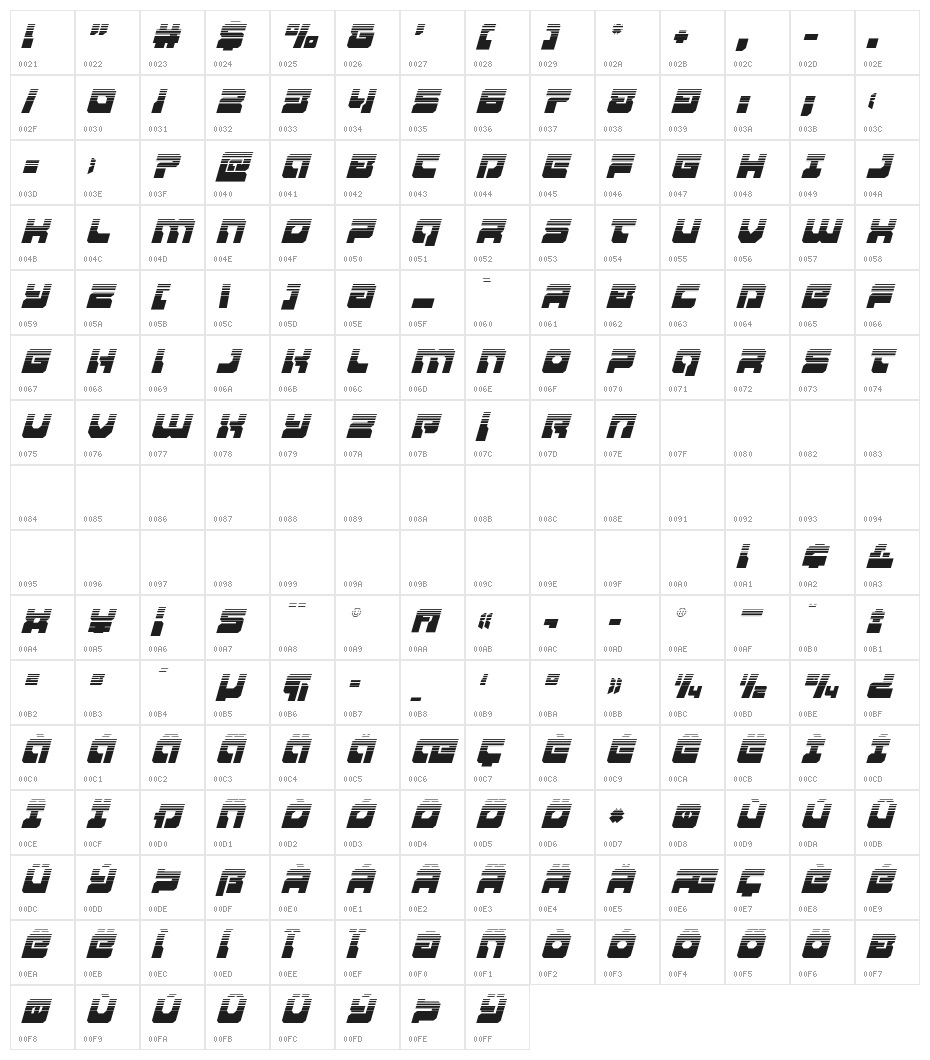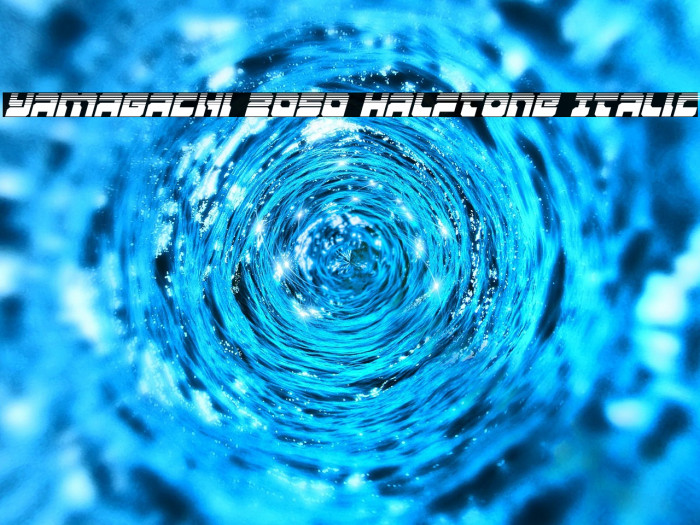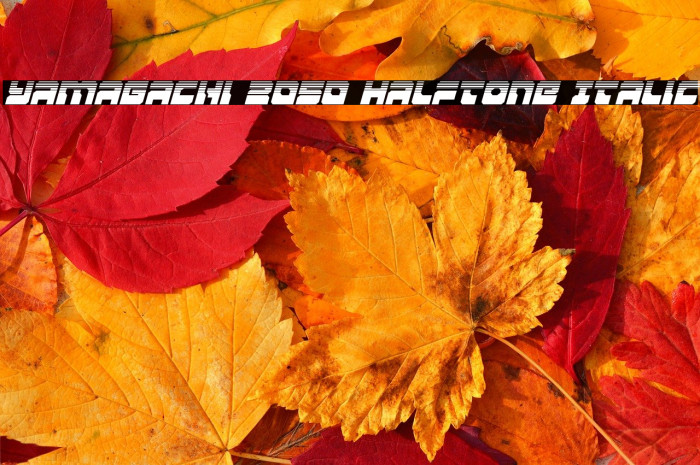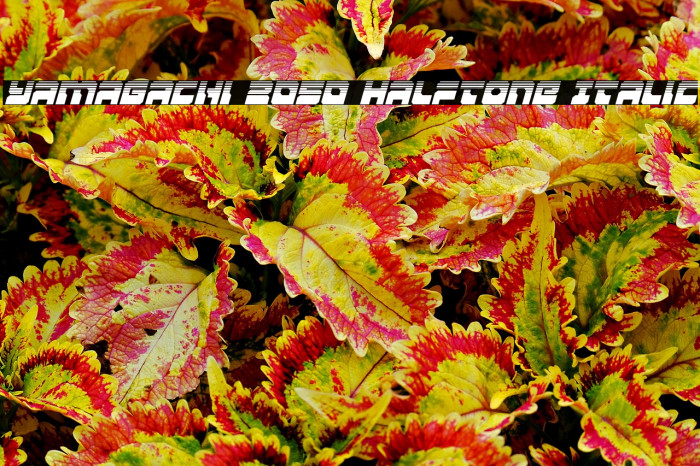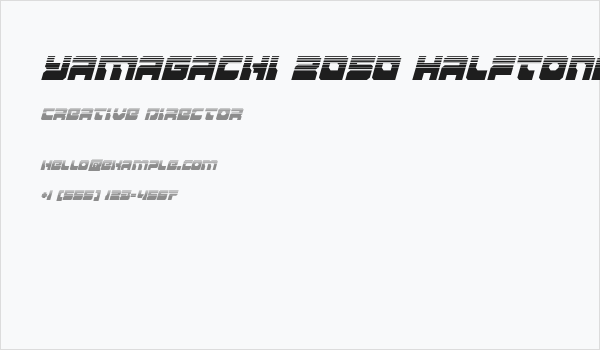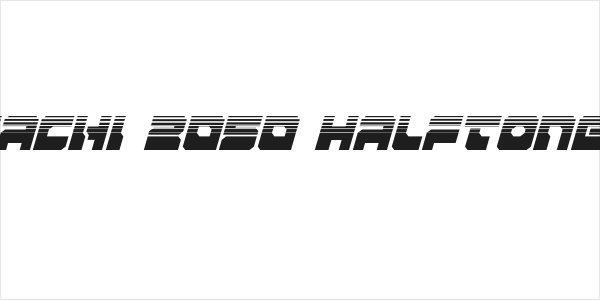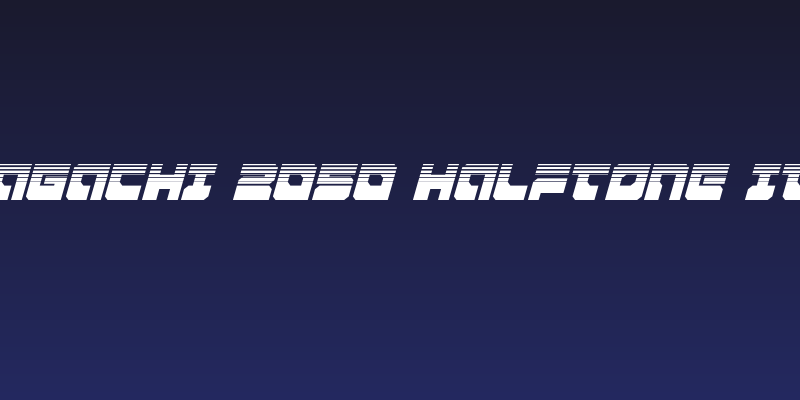
Yamagachi 2050 Halftone Italic Font
Yamagachi 2050 Halftone Italic Description
This font features a futuristic and bold design with a halftone effect that gives it a dynamic and modern appearance. The characters are italicized, adding a sense of motion and speed. The uppercase and lowercase letters, along with numbers and special characters, maintain a consistent style with sharp angles and a unique striped pattern that enhances its digital aesthetic. This font is ideal for projects that require a cutting-edge and tech-savvy look, making it suitable for digital media, gaming, and technology branding.
| Proposed Projects | Ideal for digital media, gaming titles, technology branding, and futuristic-themed designs. |